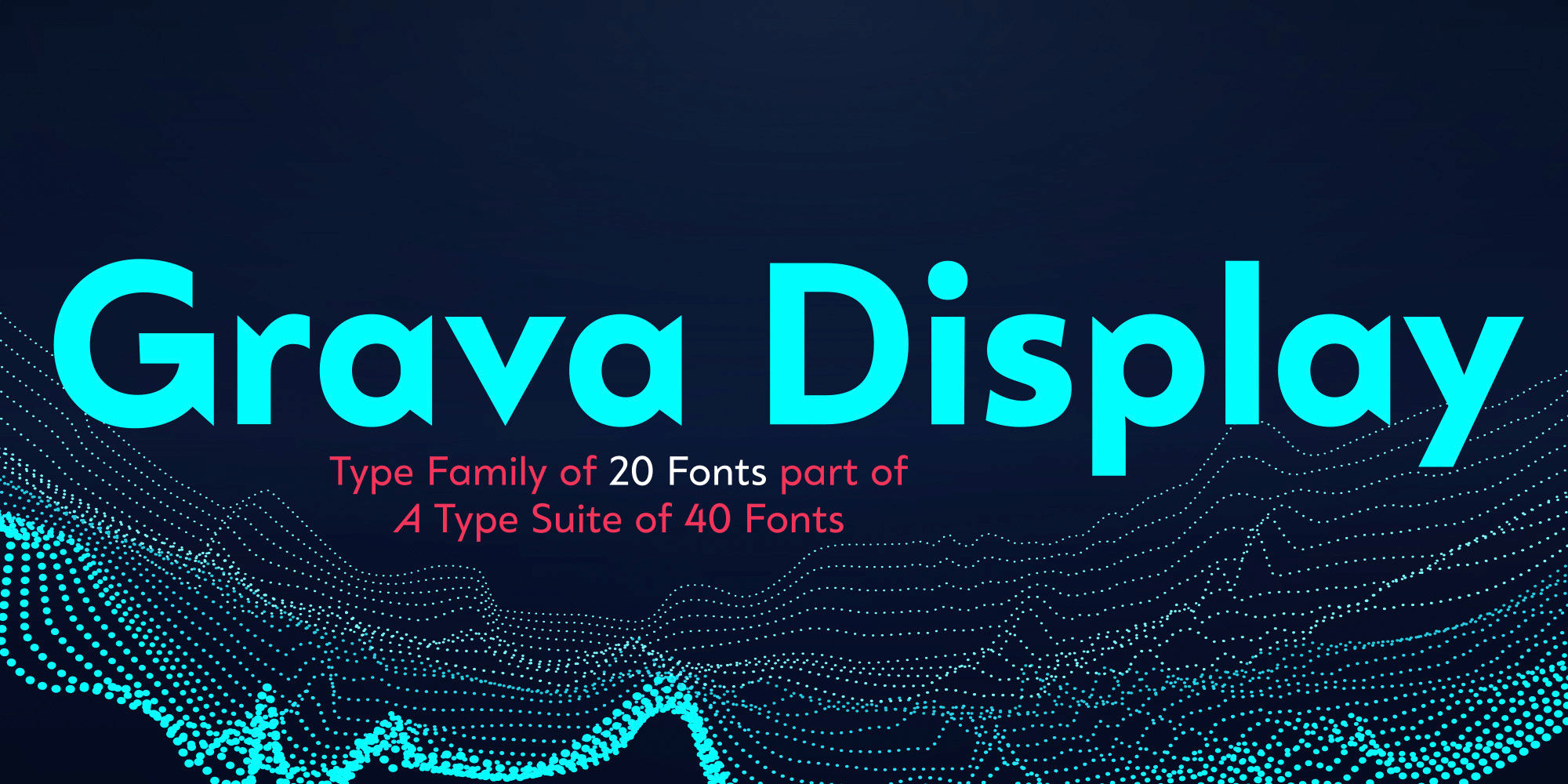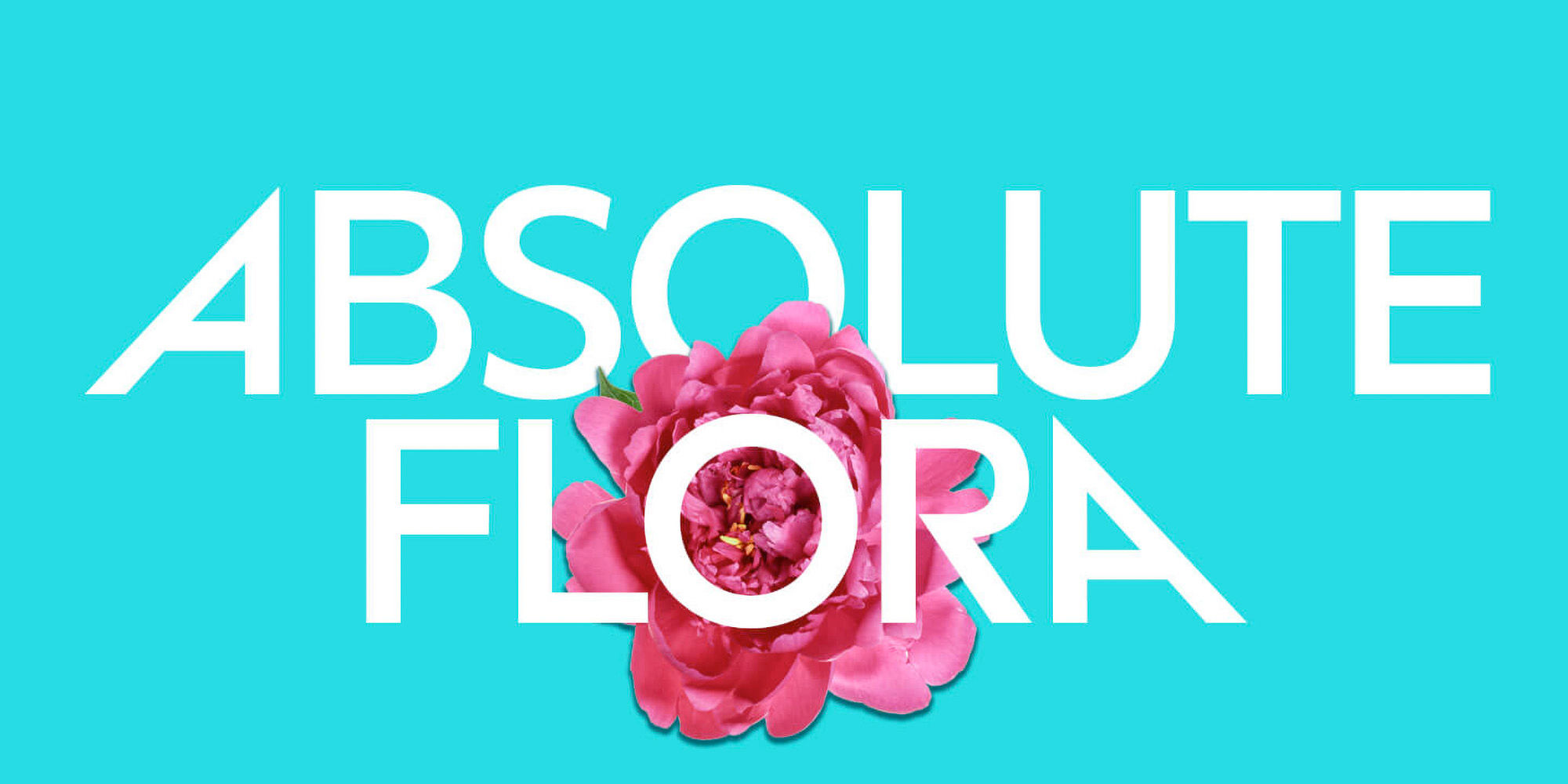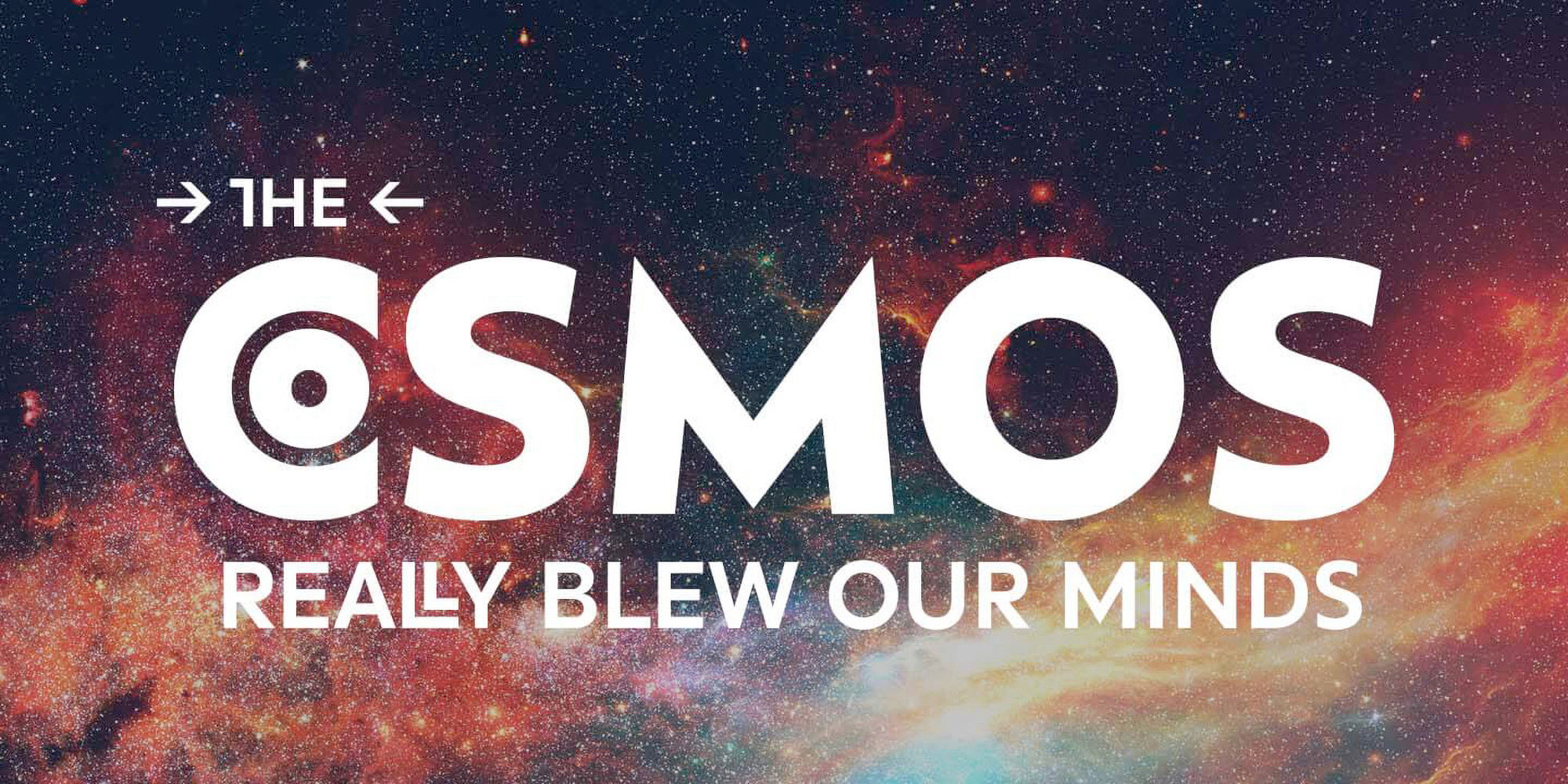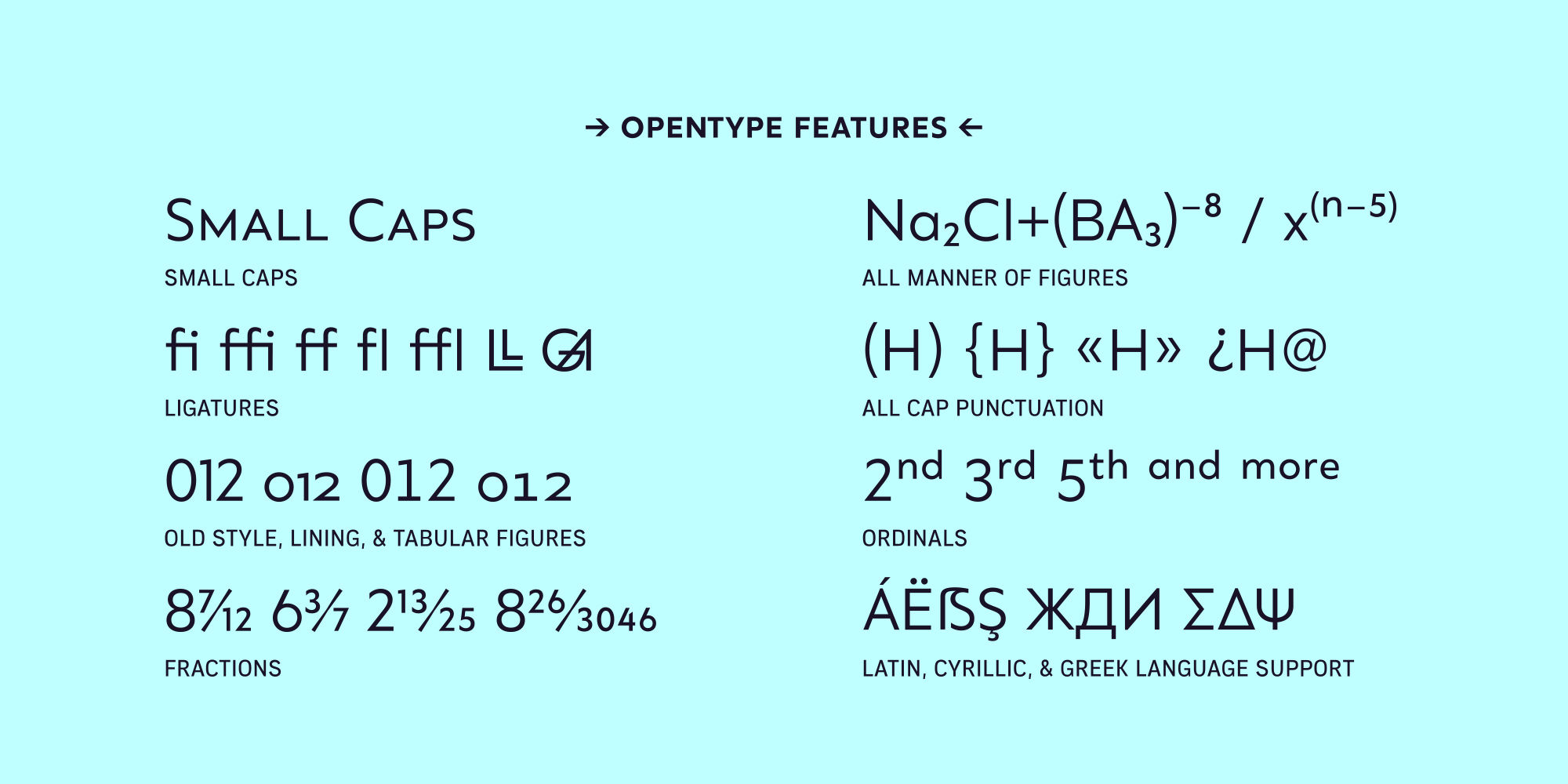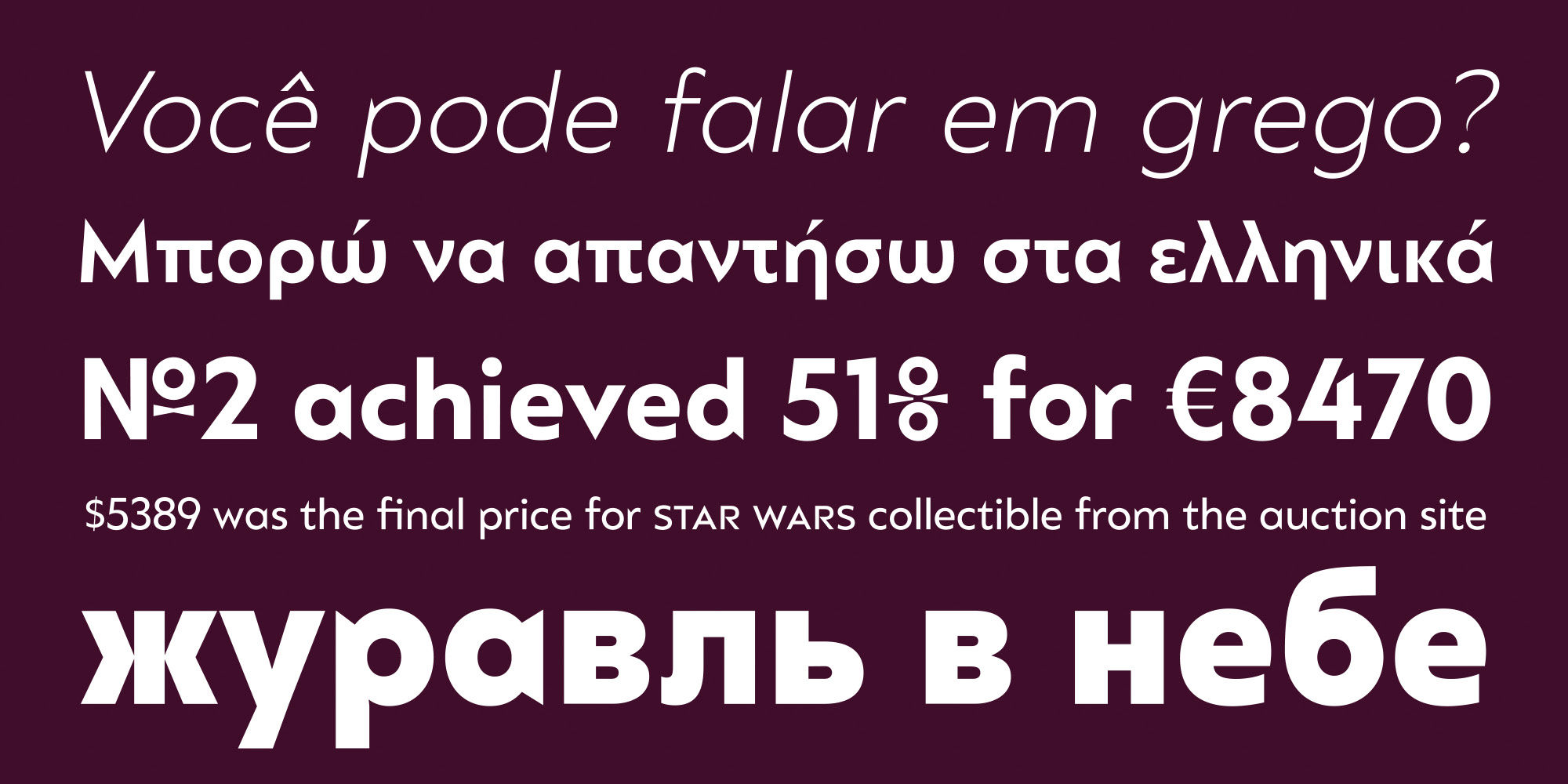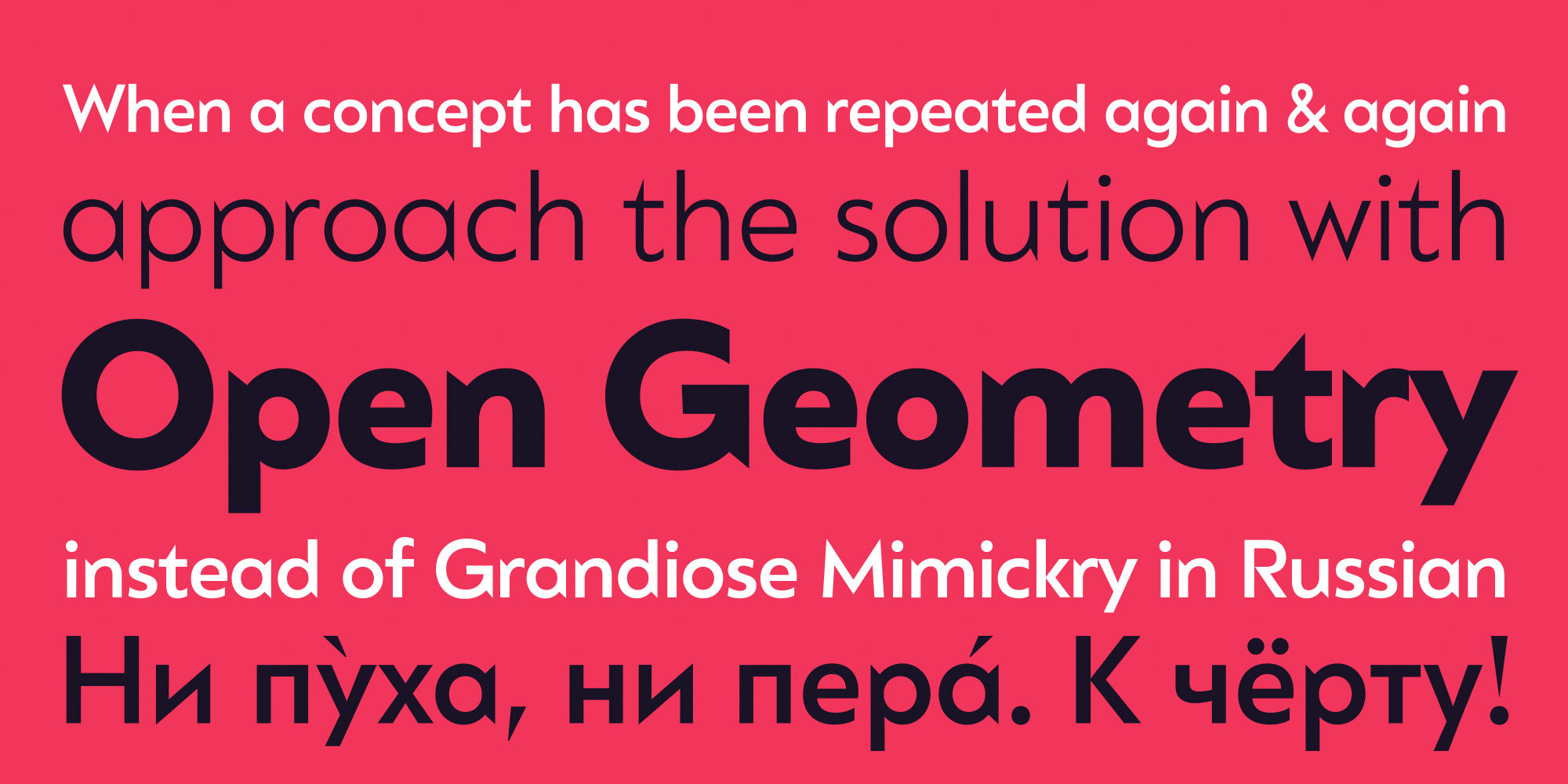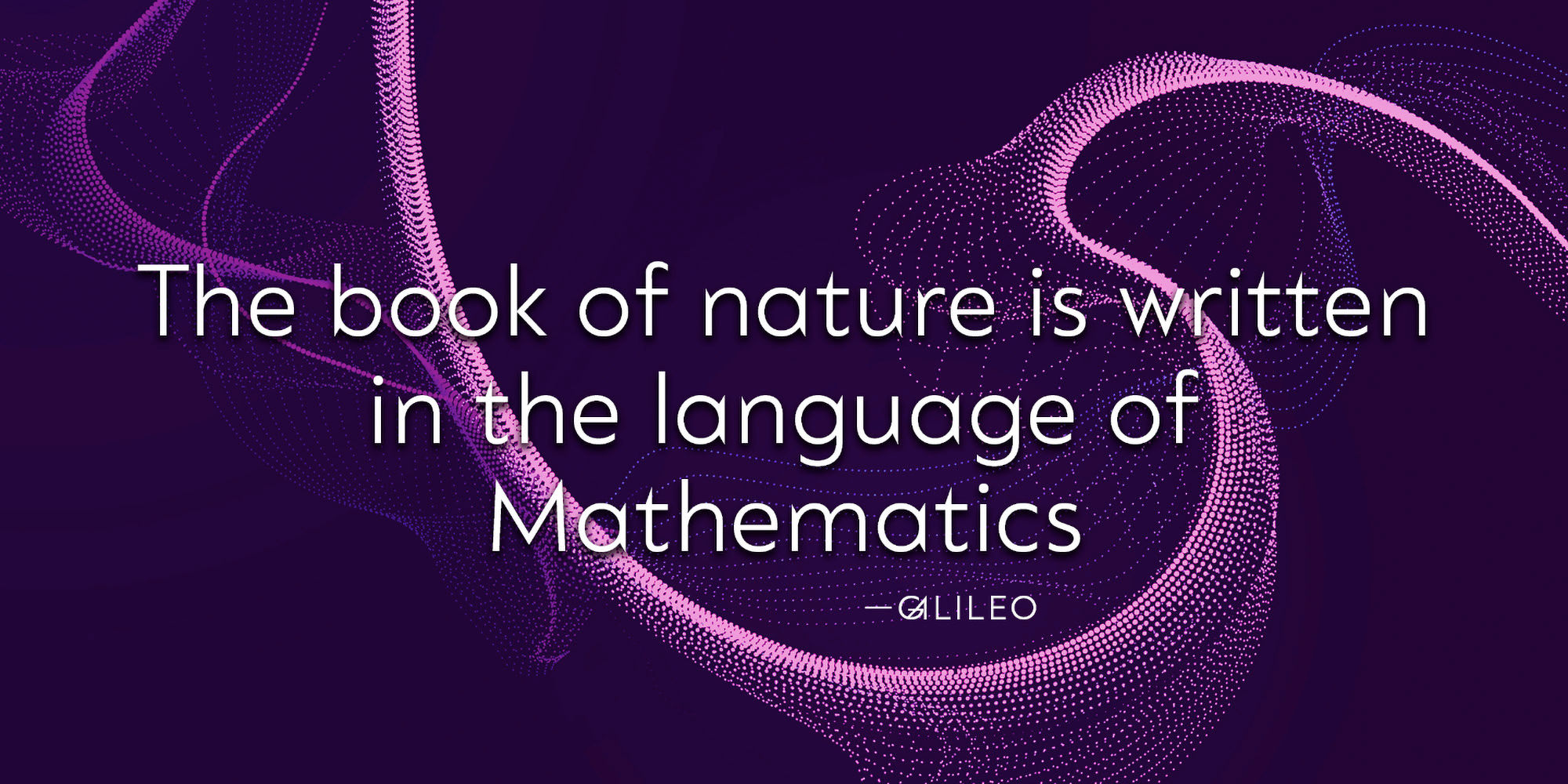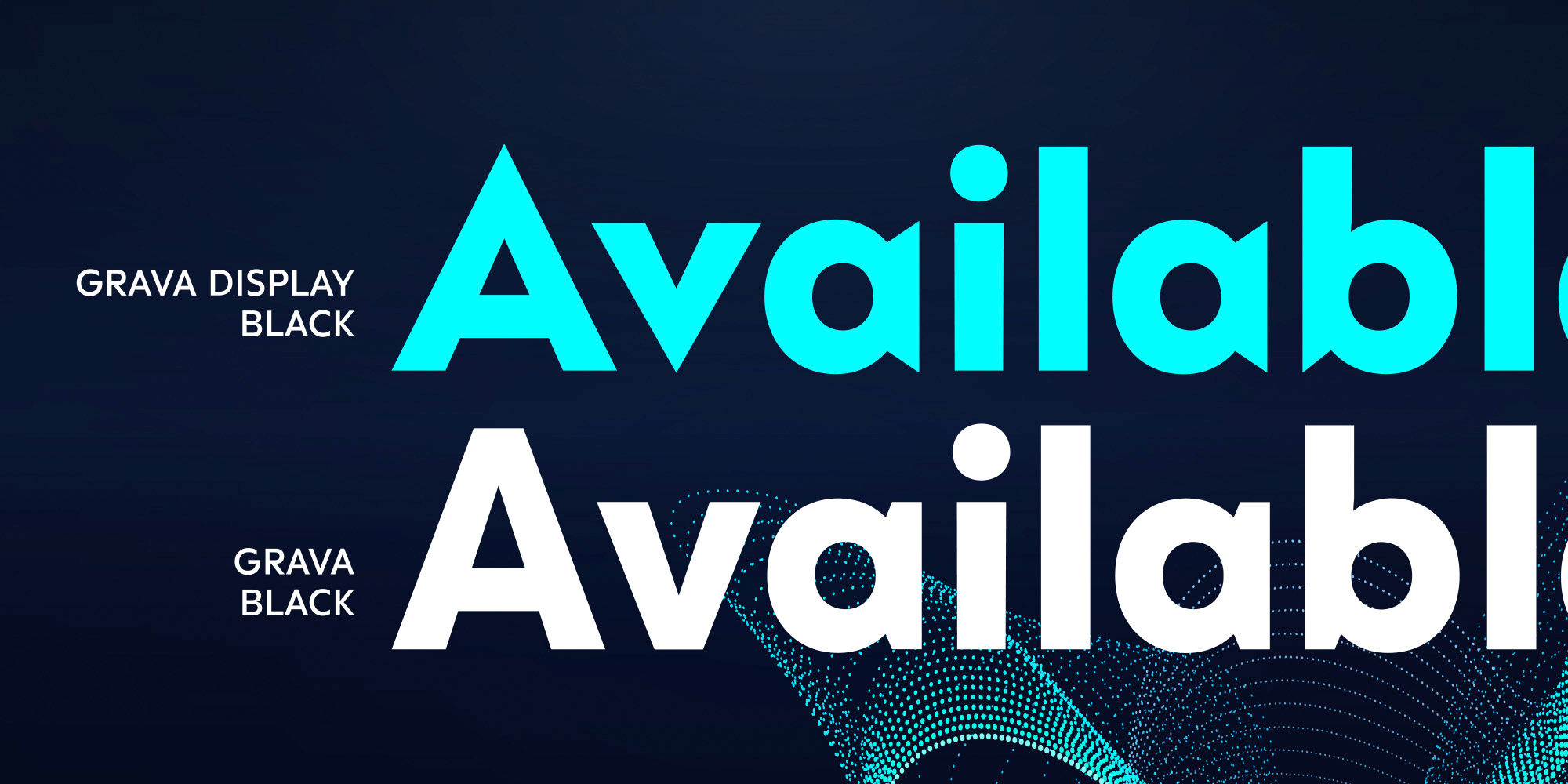
Grava Display PE
Standard Ligaturesliga
CO GA LL NT
Discretionary Ligaturesdlig
A T V W
Swashswsh
A T V W
Titling Alternatestitl
Small Caps
Small Capssmcp
1/2 3/4 5/8 7/16
Fractionsfrac
Hx3+Hy29
Superscriptsups
H2SO4
Scientific Inferiorssinf
2nd 3rd 4th
Ordinalsordn
(A) [B] {C} «D»
Case-Sensitive Formscase
Grava is Neil Summerour’s injection of warmth within the geometric sans font category. Historically, geometric sans families have been based on primal shapes — triangle, circle, square — and the more closely they held to those rigid rules, the more internal inconsistencies they showed. Angles won’t match up correctly, letters will lean, overshoots complicate clean typesetting, and idealized circles become grotesque and unwieldy in some weights. Because of issues like these, geometric sans fonts have a reputation of being cold, austere, even a bit “off”. Grava was made to hold a T-square and triangle in one hand while giving a welcoming handshake with the other.
The Grava font family comes in two styles (a normal and a Display), each with 20 weights (Thin to Ultra) and paired with italics. Its design allowed the three scripts of Latin, Cyrillic, and Greek to emerge seamlessly, ensuring Grava will find its home in multilingual publications. Even better, each character in the three scripts is spaced with every other character for a beautifully matched fit, and it’s a buy-one-get-all-three deal since they are all packaged together. The normal style’s large x-height won’t let you down in paragraphs, headings, and any call-out text. And have you seen the angles on those numerals? Pairing Grava’s numerals on a jersey is sure to catch some eyes, just sayin'.
Grava Display is purposefully quirky and sharp, and made for poster sizes, book and album covers, and those websites with a well-defined character — somewhere between playfully self-aware and overtly vintage. Flat edges are abandoned to make way for sharp points and conspicuousness, for geometrical attitude and respectful expressiveness. Corporate reports use Grava Display to take on a professional and current look. The optional ligatures (N–T, L–L, G–A, C–O, almost anywhere an ‘A’ is placed, and more) in both the normal and Display styles invoke a midcentury modernist and high art feel. Now that introductions are done, you can let go of Grava’s hand and put it to work for you.